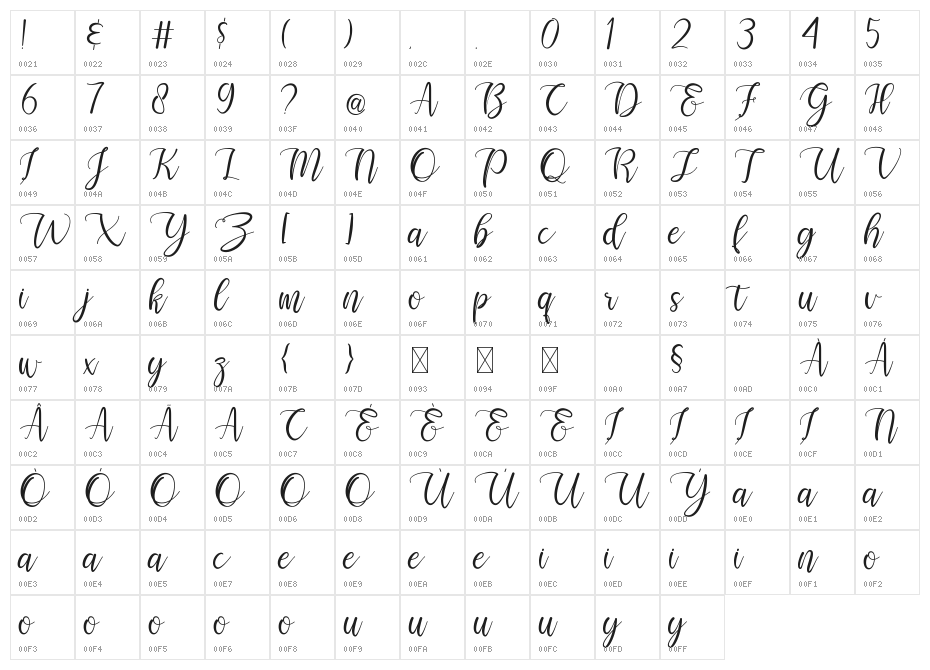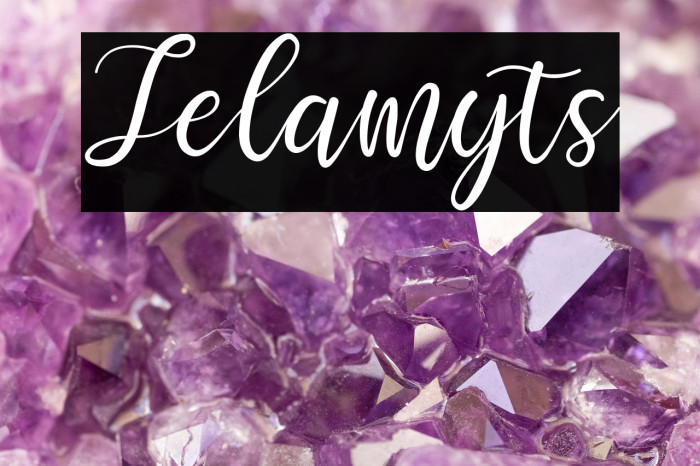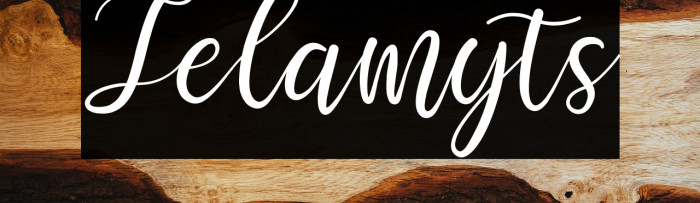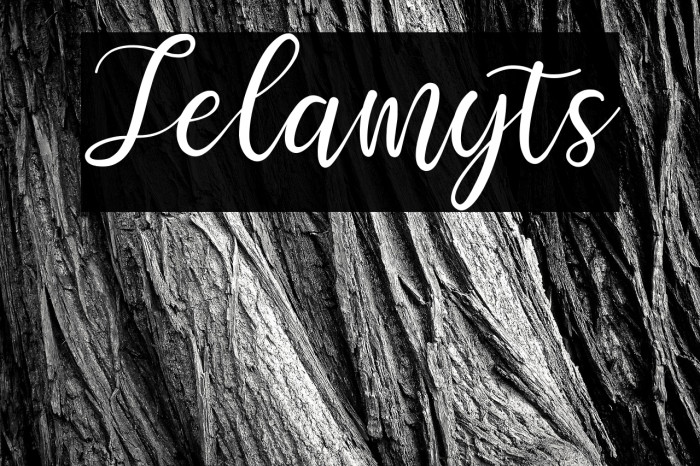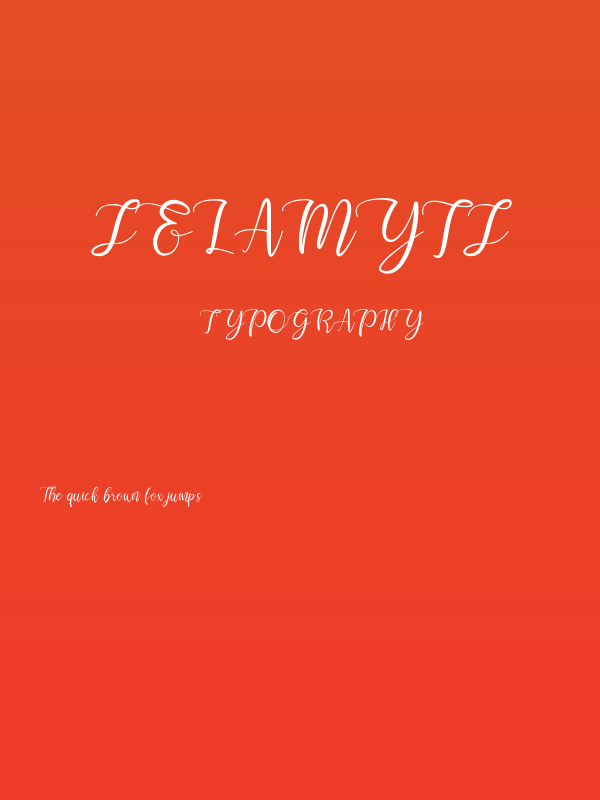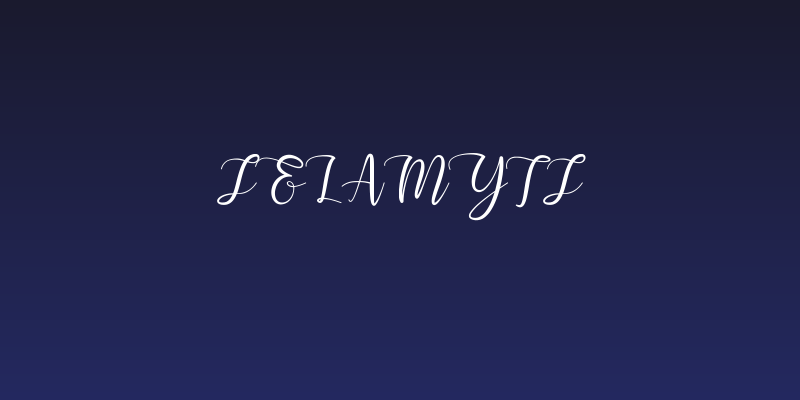
Selamyts Font
Selamyts Description
This font exudes a lively and elegant script style, characterized by its flowing and interconnected letterforms. The uppercase letters are graceful with subtle flourishes, while the lowercase letters maintain a consistent rhythm, enhancing readability. The numerals are stylish yet clear, complementing the overall aesthetic. Special characters are thoughtfully designed, maintaining the font's cohesive look. The strokes vary in thickness, adding a dynamic feel without compromising legibility. This font is perfect for projects that require a touch of sophistication and personality.
| Proposed Projects | Ideal for wedding invitations, greeting cards, branding, and elegant packaging. |